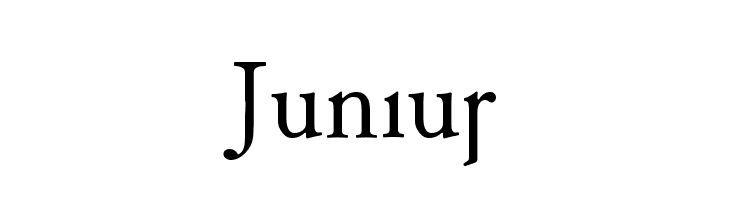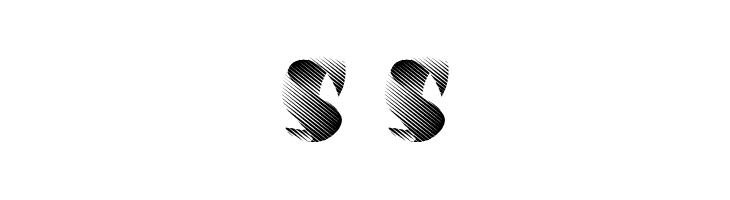
( Lollibomb - www.lollibomb.com/ )
A bold, playful font with a handcrafted appearance and thick strokes.
( Lollibomb - www.lollibomb.com/ )
A bold, spiky font with a dynamic and energetic appearance.
( Lollibomb - www.lollibomb.com/ )
A classic serif font with a playful, tilted design.
( Mawhrt )
A bold, modern sans-serif font with tight spacing and strong visual impact.
( Peter S. Baker - faculty.virginia.edu/oldenglish/ )
A sophisticated serif font blending classical elegance with modern flair.
( Peter S. Baker - faculty.virginia.edu/oldenglish/ )
A bold, serif font with a blend of traditional and modern elements.
( Peter S. Baker - faculty.virginia.edu/oldenglish/ )
A classic italic serif font with elegant curves and sharp serifs.
( Peter S. Baker - faculty.virginia.edu/oldenglish/ )
An elegant italic serif font with flowing curves and classic style.
( Rafael Dinner - alum.mit.edu/www/rdinner/fonts.html )
A bold, textured font with a dynamic, decorative style.
( Rick Mueller - moorstation.org/typoasis/designers/mueller/ )
A futuristic and angular font with geometric elements and bold design.